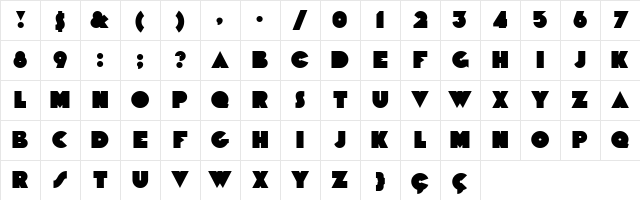
Ciclope Black Black Free Font
Ciclope Black Black
Foundry: NowType
Designer: Claudio Rocha, Lucas Franco
Design Context for Ciclope Black
Ciclope Black is a composed and adaptable typeface that performs quietly and consistently across a wide range of design contexts.